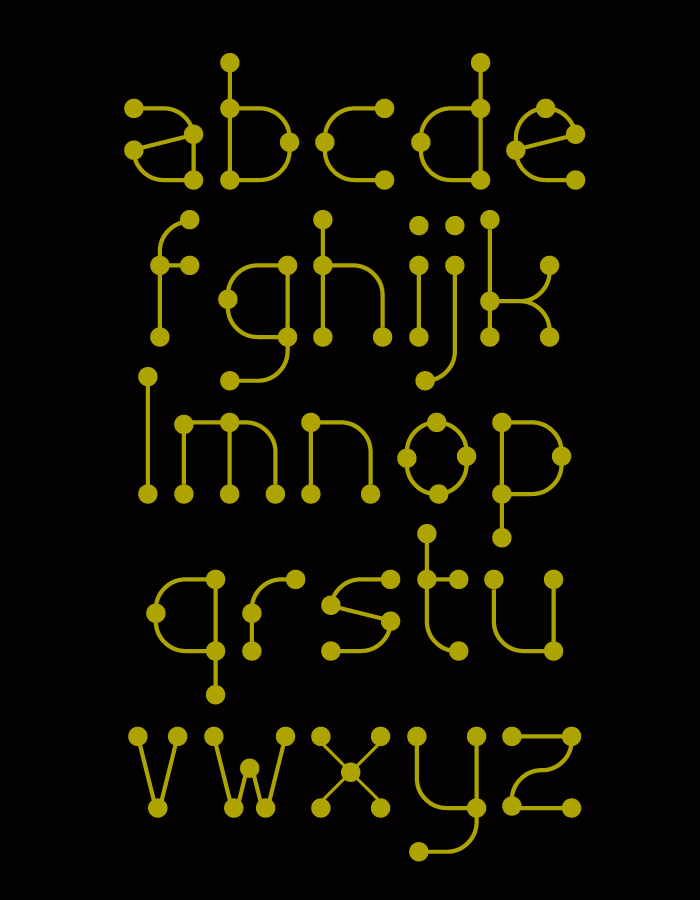
A fun font with a fun name, and dots :D The new thin bricks are put to good use, quite a creative design.
Wonderful. Very playful and well worked out.
@taaamas: Some fonts are so advanced on a technical and design level that they are saleable. And some designers think their ideas can easily be reworked from scratch with a little skill and effort ;)
This font is very very beautiful.
I was looking around FS and I ended up in front of this font. In the distant 2001 I made some letters similar to yours for a poster... Convergent thinking, once again, compa.
That looks great @elmoyenique! You could make it into a colour fontstruction...